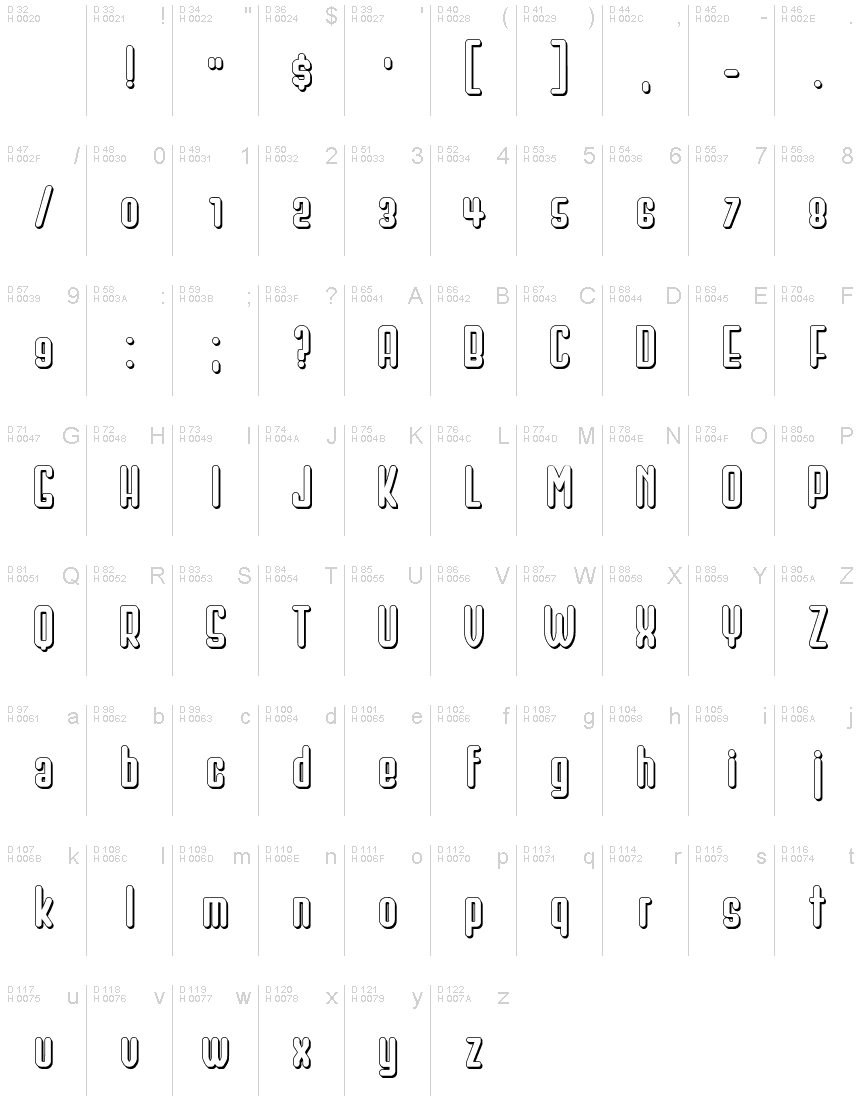
Daily Gifts 3D Regular
Daily Gifts 3D is a sleek and modern sans-serif font designed by Vladimir Nikolic. Its semi-light weight and extra-condensed width make it perfect for projects that require a clean, minimalistic look. The 3D effect adds depth and dimension to the characters, making it suitable for logo designs, branding materials, and packaging. With its high legibility and unique style, Daily Gifts 3D can also be used for web design, advertising campaigns, and social media graphics. Whether you're looking to create bold headlines or subtle text overlays, Daily Gifts 3D is the perfect font choice for any project that needs a touch of sophistication.
Daily Gifts 3D